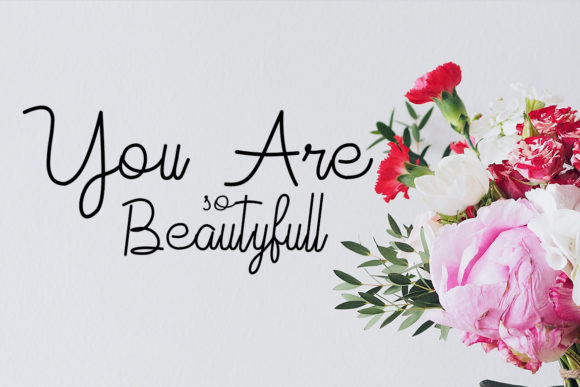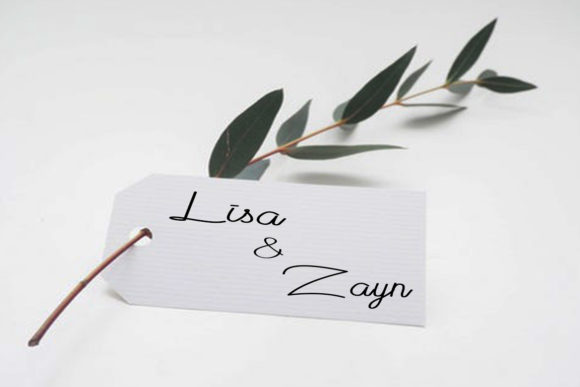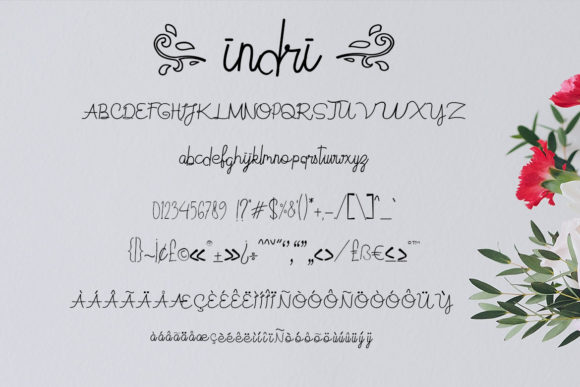
Introduction to Indri Font
Imagine you’re brainstorming ideas for a new design project, and suddenly, the perfect font pops into your mind. For designers, finding the right font can make all the difference between a mediocre and an amazing creative project. That’s where the Indri Font comes in – a modern, high-quality design resource that’s sure to elevate your work.
Whether you’re working on a logo, invitation, signature, or magazine, the Indri Font is an excellent choice. Its beautiful characteristics make it perfect for a wide range of applications. Plus, it’s available for free download, so you can experiment with it without breaking the bank. With a transparent background, you can easily combine it with other design elements to create a cohesive look.
As a valuable addition to your design toolkit, the Indri Font is a must-have for any creative professional. In this article, we’ll delve into the world of this amazing font and explore its many uses and benefits.
Key Features of Indri Font
- Designed with a modern aesthetic, making it perfect for contemporary creative projects
Honest Review: Indri Font
As a designer, I’m always on the lookout for high-quality design resources that can elevate my creative projects. The Indri Font has been a game-changer for me, offering a unique blend of elegance and sophistication.
Here are some things that work well: ✨
- Unique and stylish design: The Indri Font boasts a distinctive aesthetic that sets it apart from more generic fonts.
- High-quality vectors: The font’s high-resolution vectors ensure that it looks crisp and clear on a variety of backgrounds, including transparent backgrounds.
However, I do have some reservations: ⚠️
- Limited language support: While the font is suitable for English and other Latin-based languages, it may not be as effective for languages that require more complex typography.
- No bold or italic variants: While the font’s regular weight is excellent, the lack of bold and italic variants may limit its versatility.
Overall, I’m thoroughly impressed with the Indri Font. Its unique design and high-quality vectors make it an excellent choice for designers looking to add a touch of sophistication to their creative projects. With a little creativity, the limitations of the font can be worked around, making it a valuable addition to any design resource library.
How to Use Indri Font
The Indri Font is a high-quality design resource ideal for creative projects. It offers a unique and stylish aesthetic that can elevate any design.
Getting the Most Out of Indri Font
To get the most out of the Indri Font, use it in conjunction with other design resources, such as graphics and textures. You can also experiment with different font sizes and styles to create a unique look.
The Indri Font is ideal for a variety of creative projects, including:
- UI/UX design
- Print design